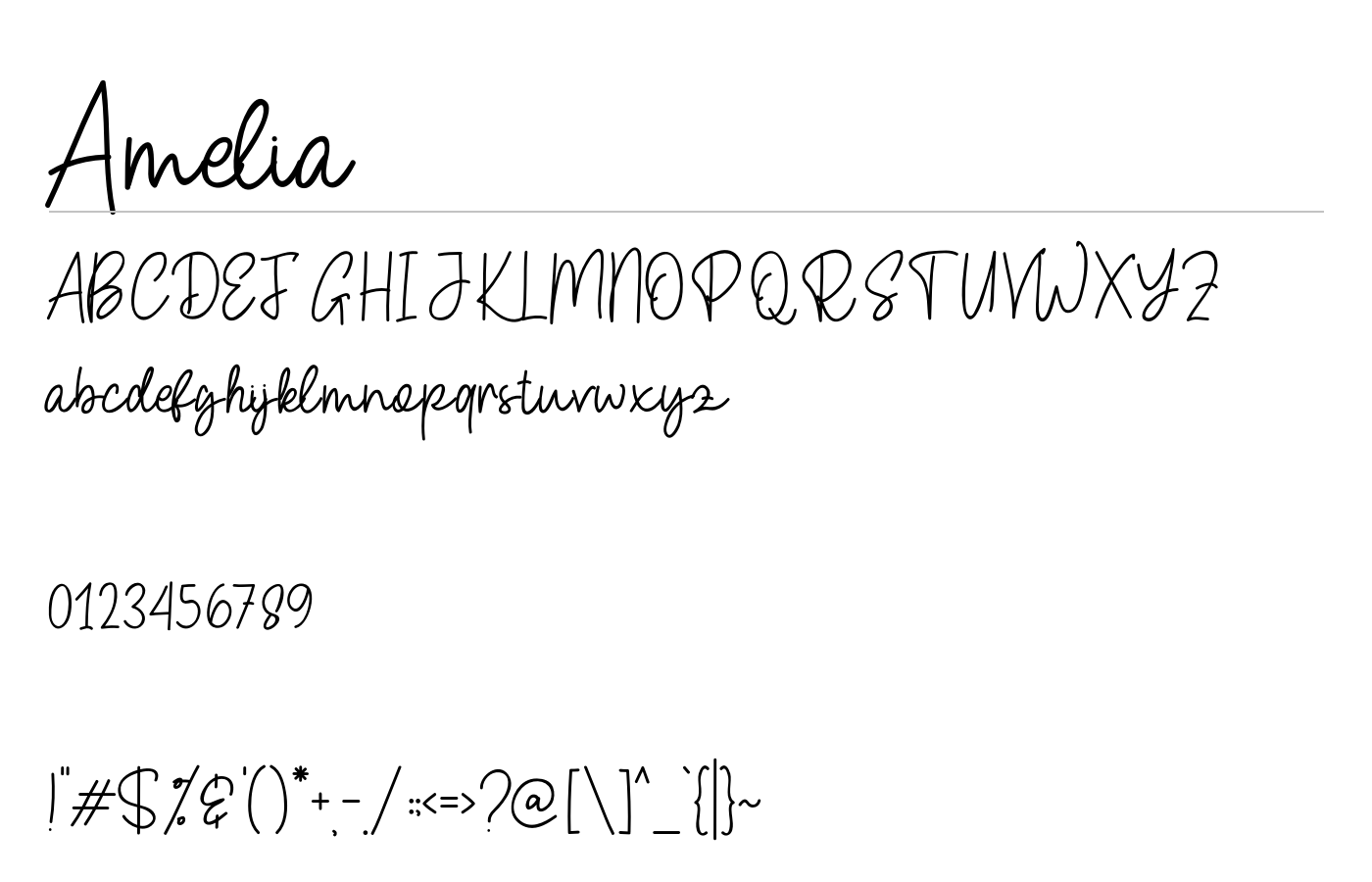
Amelia Font is a delicate, handwritten script font with a light weight and airy feel, featuring smooth, flowing strokes that emulate natural handwriting. Its tall x-height, combined with playful yet elegant letterforms, makes it perfect for adding a personal, friendly touch to invitations, branding, and creative projects that seek a warm, approachable style. This font works well in headlines and short text where a casual, refined look is desired.
Amelia Font
About Amelia Font